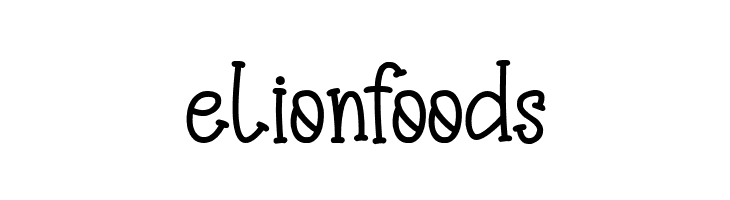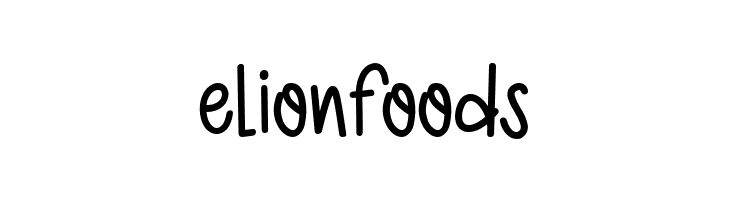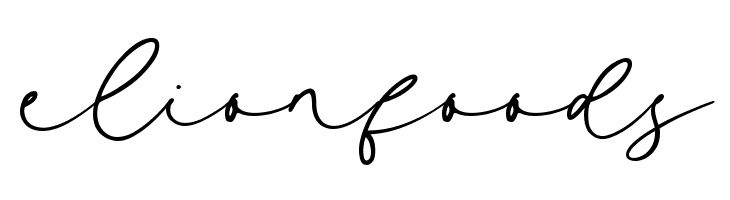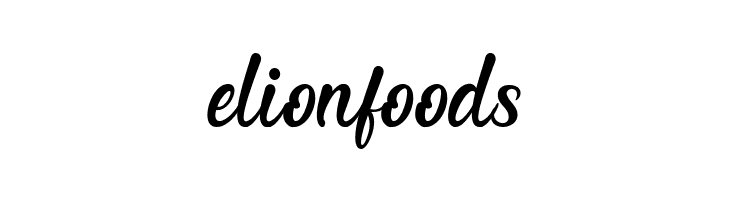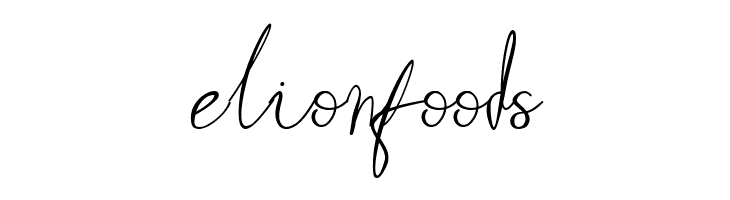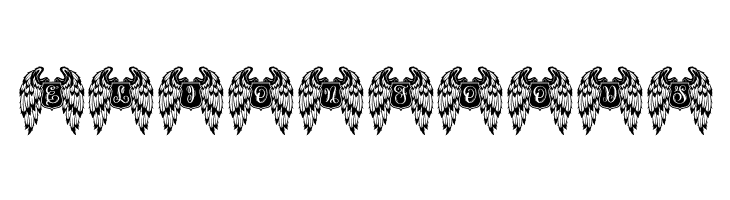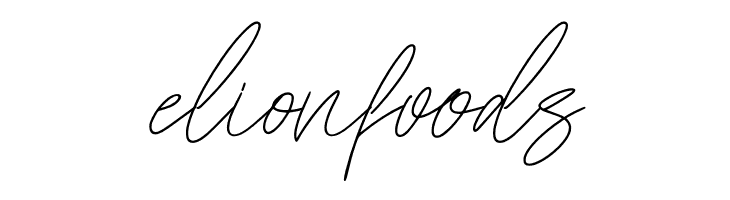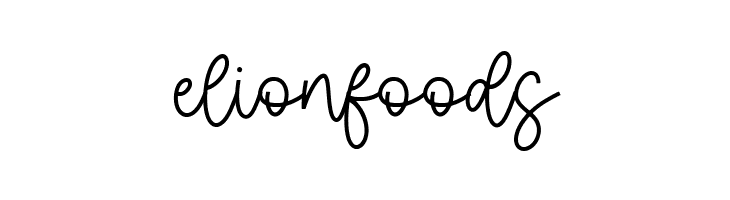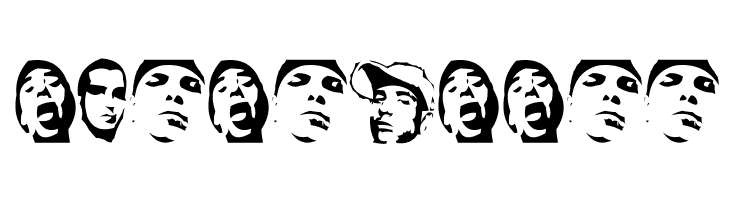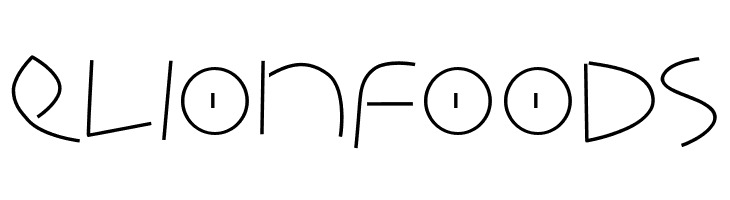
• karitza Bold
A modern, rounded font with smooth, continuous lines and a playful aesthetic.
• karitza Bold Italic
A bold, italic font with smooth, flowing curves and a modern, artistic style.
• karitza Italic
A modern, flowing italic font with sleek curves and consistent stroke width.
• karitza-Hollow
A modern, hollow font with smooth curves and a futuristic aesthetic.
• karitza-Inverse
A modern, fluid font with thin lines and elegant curves, perfect for contemporary designs.
• karitza-Light
A modern, minimalist font with geometric, continuous lines and rounded edges.
• Kastella
A flowing, elegant script font with smooth, rounded edges and consistent stroke width.
• Kastina
A fluid and elegant handwritten font with a natural, personal touch.
• Kasuaari kirjastossa
A bold, hand-drawn font with an artistic and playful style.
• Kathilass
A fluid and elegant handwritten script with a natural, personal touch.
• Kayskew October Eleven
A playful, casual handwritten font with smooth curves and a friendly appearance.
• Kega
• KenSaavedra
• Kepak
A decorative font with ornate, wing-like frames around each character, exuding a gothic or fantasy style.
• Kerepek Demo
An elegant, flowing script font with intricate loops and swirls.
• kevinandamanda.com
A casual, handwritten font with bold strokes and balanced spacing.
• kevinandamandadotcom
• Kid Candy Sans
A playful, hand-drawn font with rounded, smooth letters and a whimsical style.
• Kid Candy Serif
A playful, hand-drawn serif font with a whimsical and informal style.
• Kids Bondes Regular
A playful, rounded font with a youthful, hand-drawn appearance.
• KidSignsThree
A whimsical, cartoon-like font with playful, exaggerated characters.
• KidsStuffAdded
Whimsical dingbat font with playful children's illustrations.
• Killanea